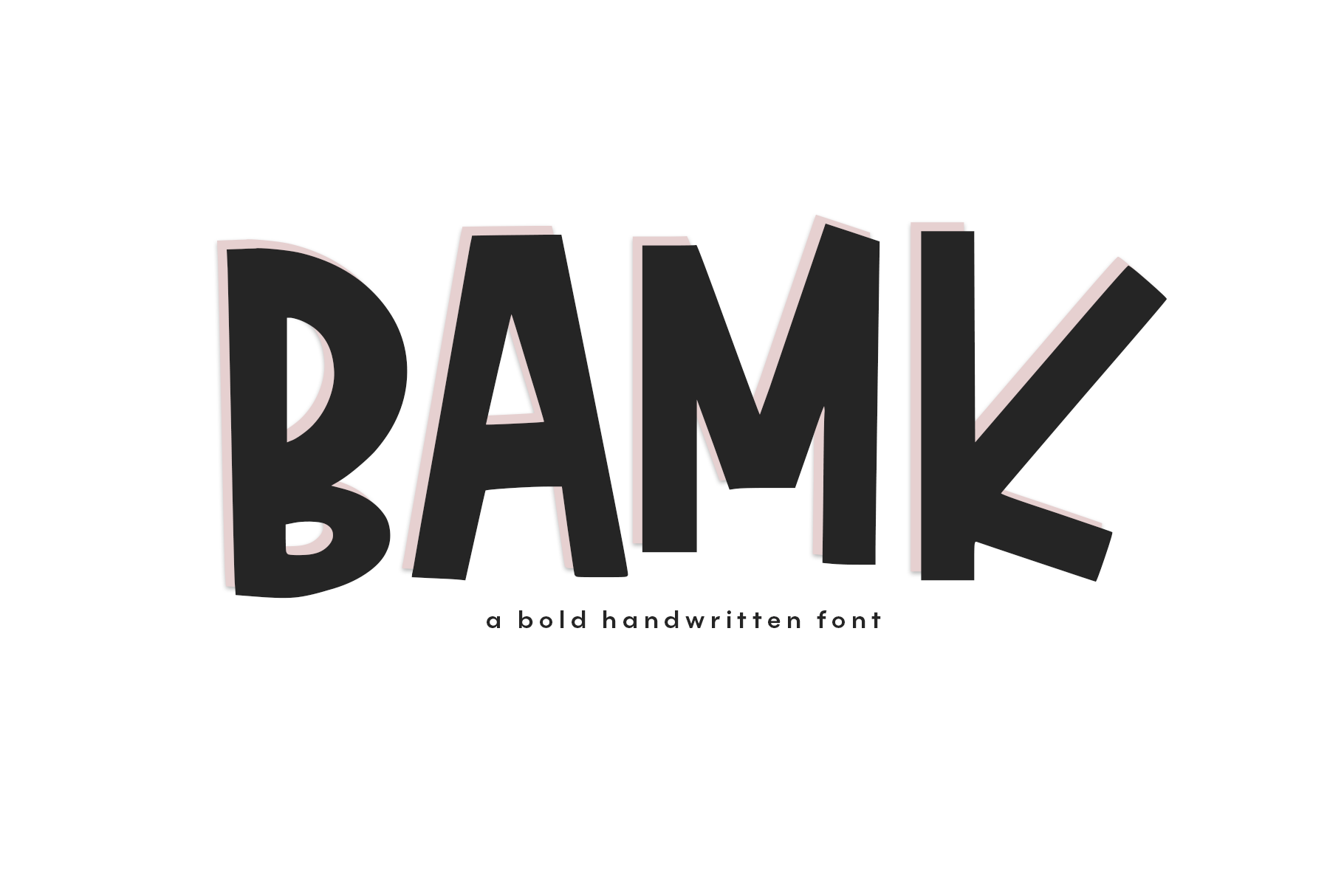
BAMK | A Bold Handwritten Font
BAMK is a fun handwritten font with bold letters. This is an all caps font
This font is perfect for quotes, headings, designs, logos, invitations and more!